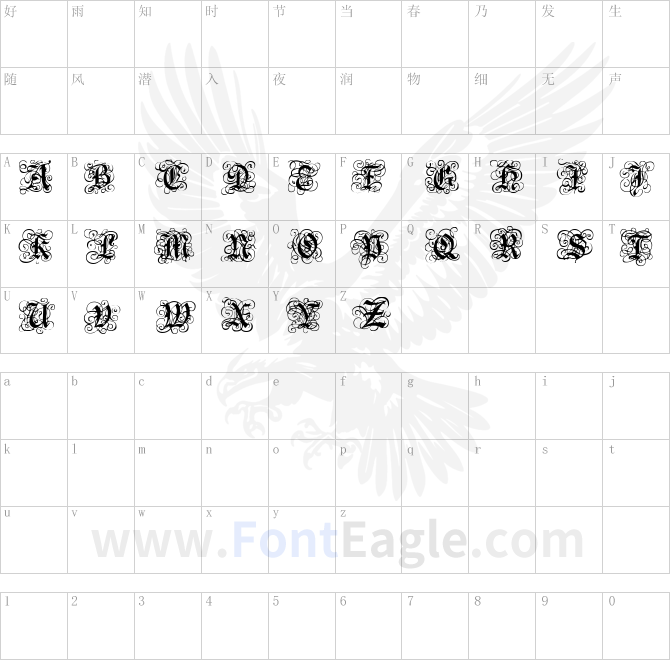
RoyalGothic is a great font, widely used in graphic design, single-page menu design, poster design and other fields, and is deeply loved by designers.RoyalGothic download.